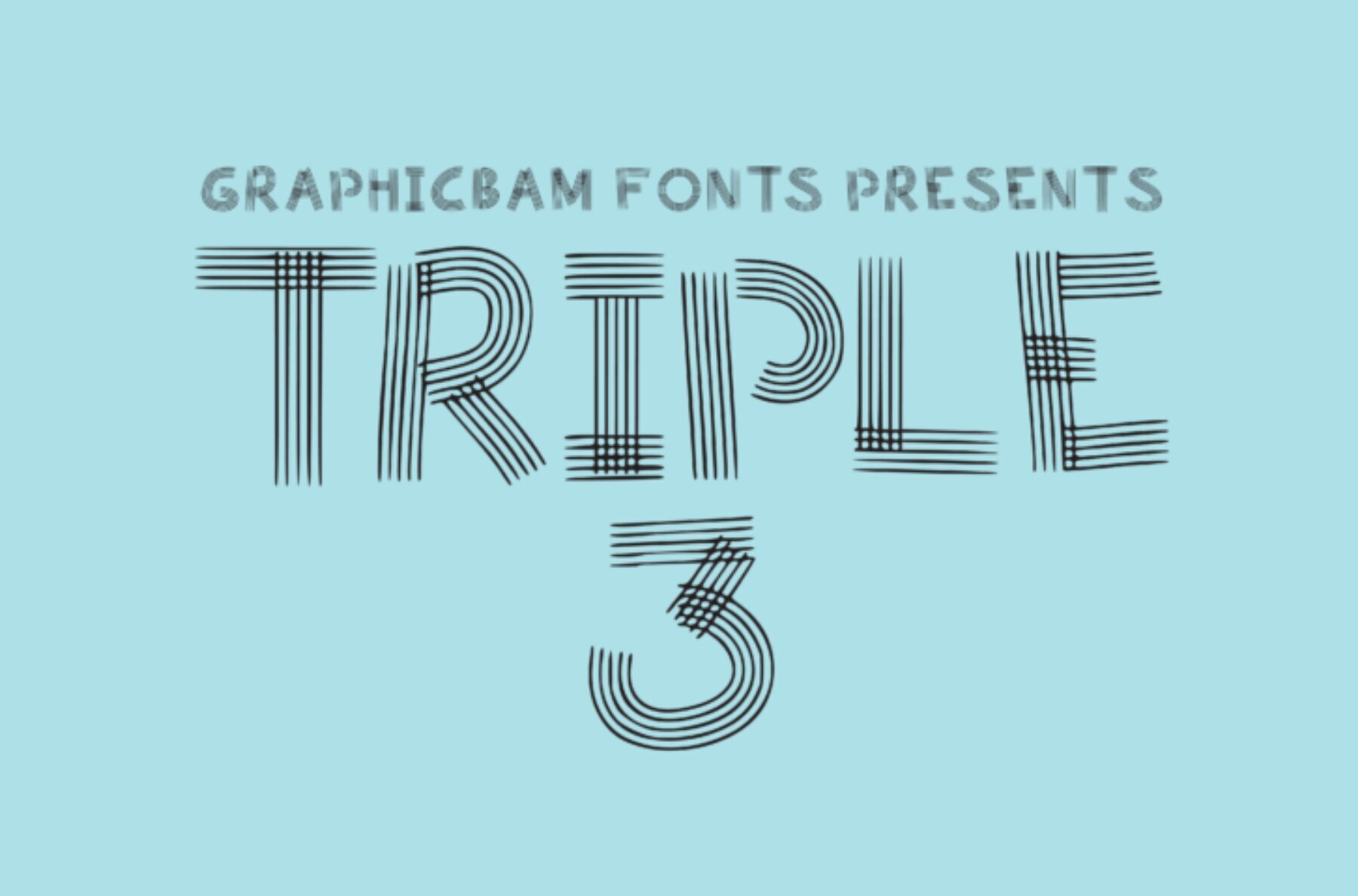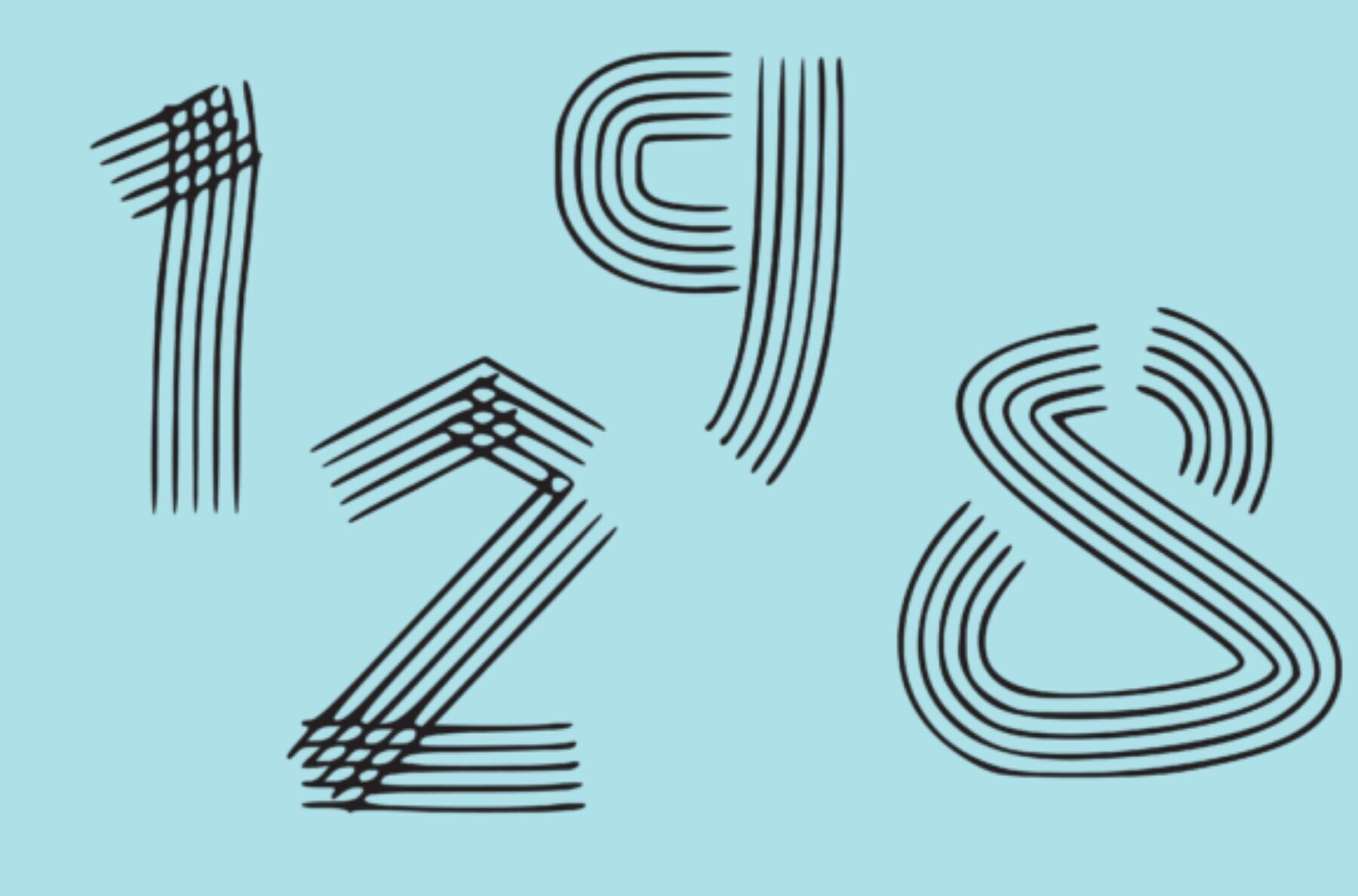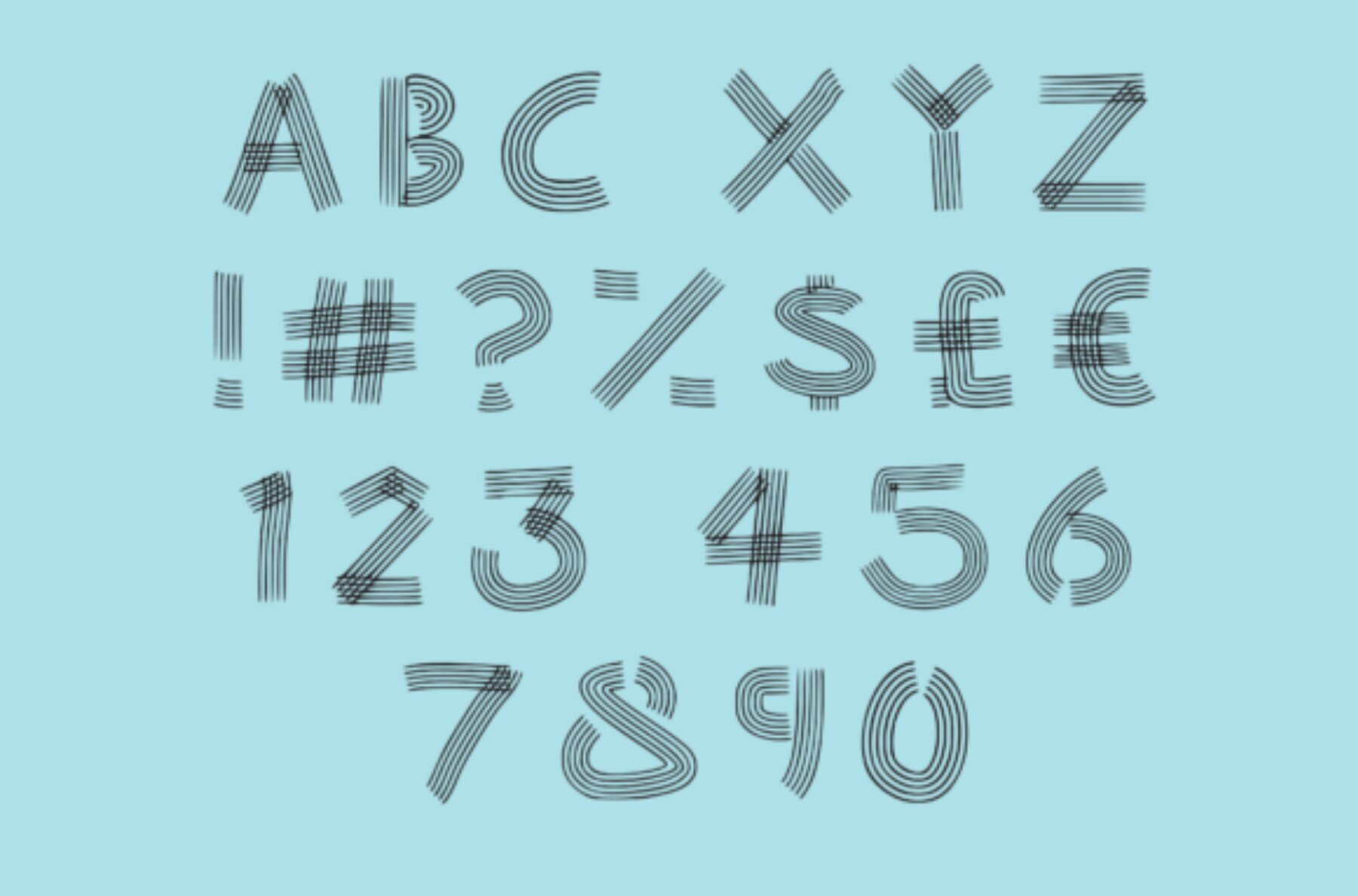
Triple 3 Font
Triple 3
Discover the charm of Triple 3, a fashionable and contemporary display font that adds a stylish flair to any design project. Perfect for posters, flyers, and various print materials, this font captures attention effortlessly. Maximize your creative ventures by integrating Triple 3's unique look into your designs and experience the multitude of possibilities it offers. Whether you are spearheading an advertising campaign or crafting personal projects, Triple 3 provides the flexibility and impact you seek. Triple 3 Display Font